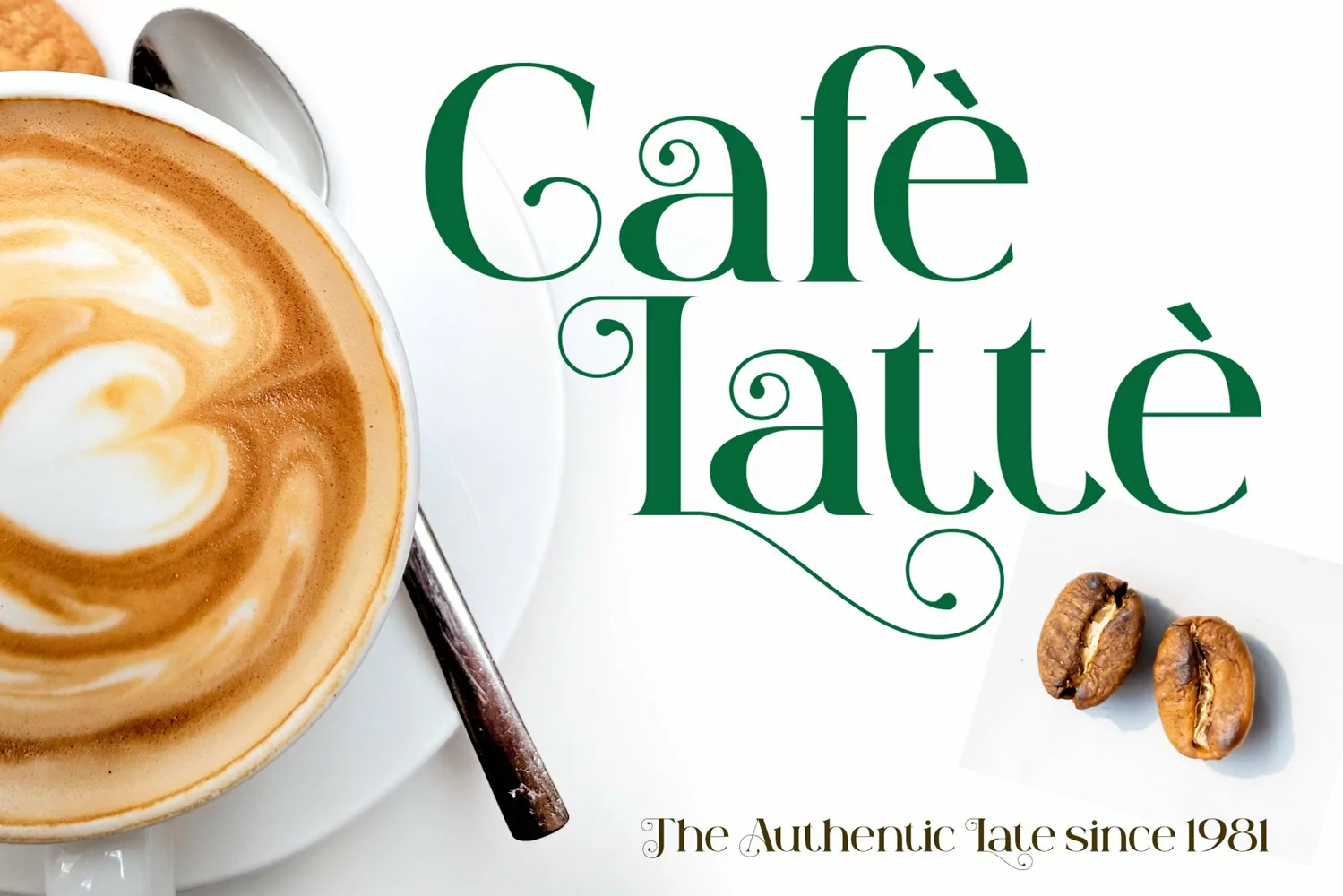
Weird Melone
**Weird Melone Font**
This pair was inspired by the retro movie poster design that i saw on some coffee shop, It was crafted by hand specially to add natural handmade feeling in its brand identity than i make it clean with pentool.
Weird Melone font has 228 character set included
Weird Melone Font is very good looking in logo, labels, product packaging, invitations, advertising and others.